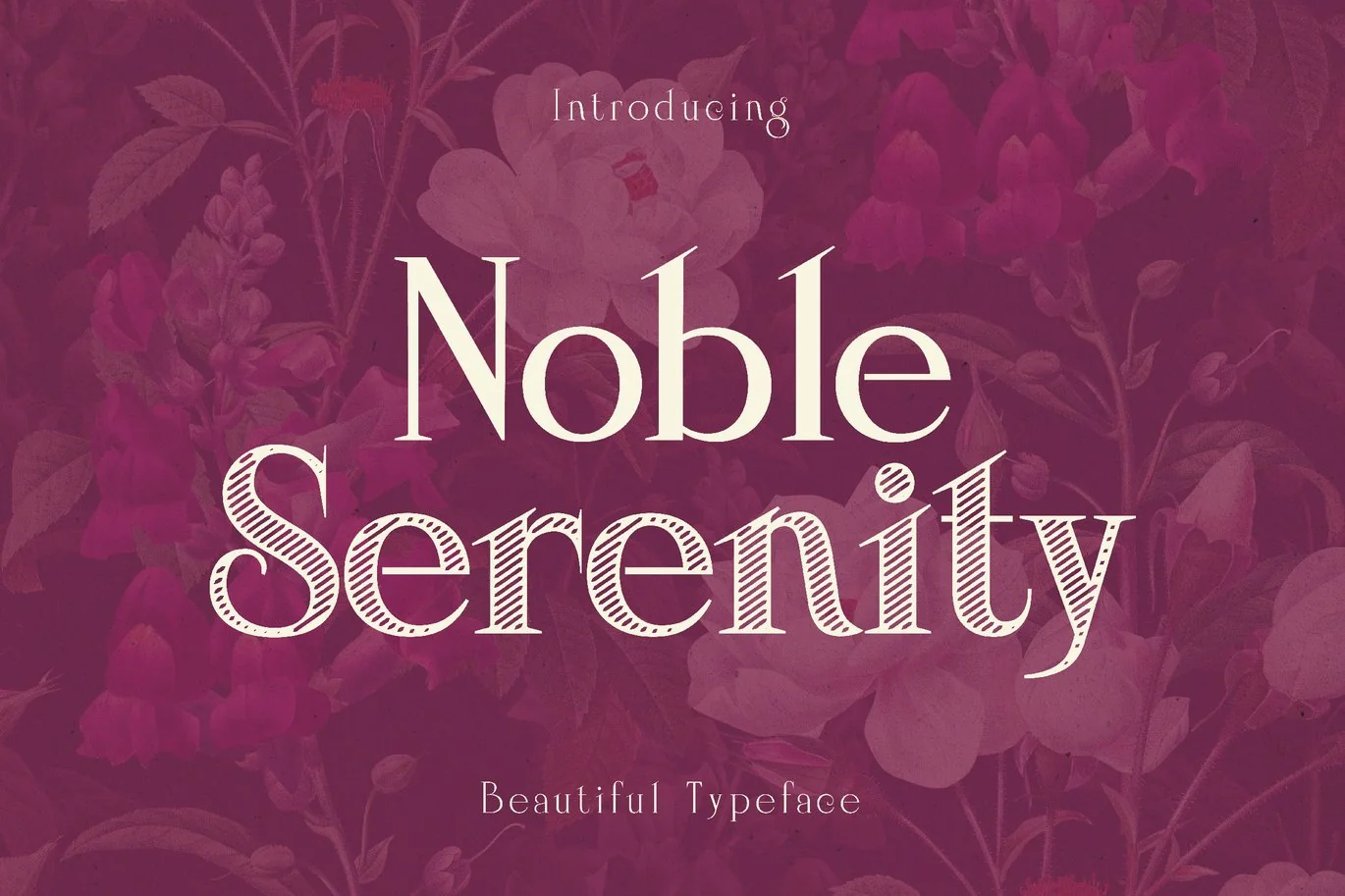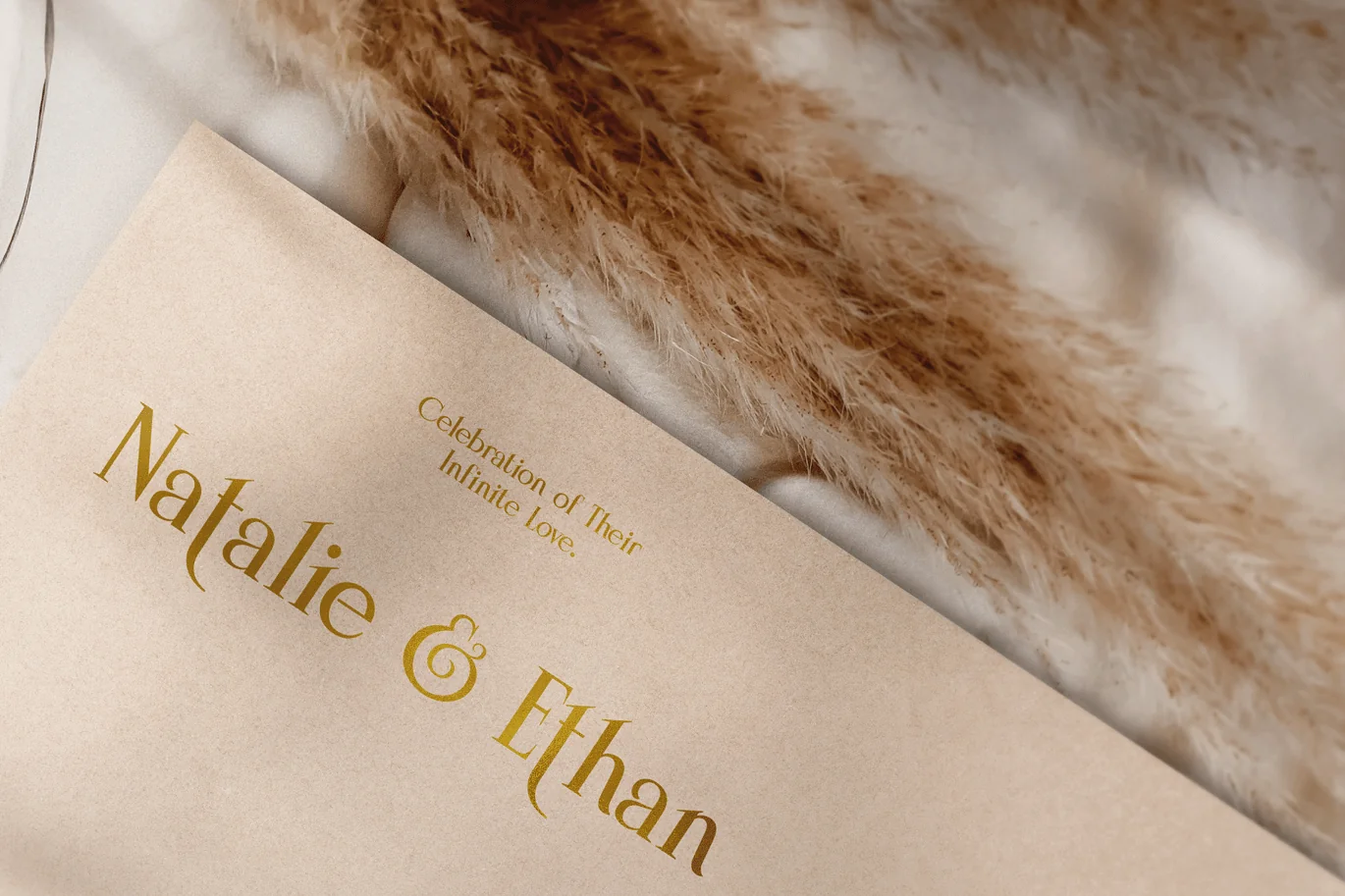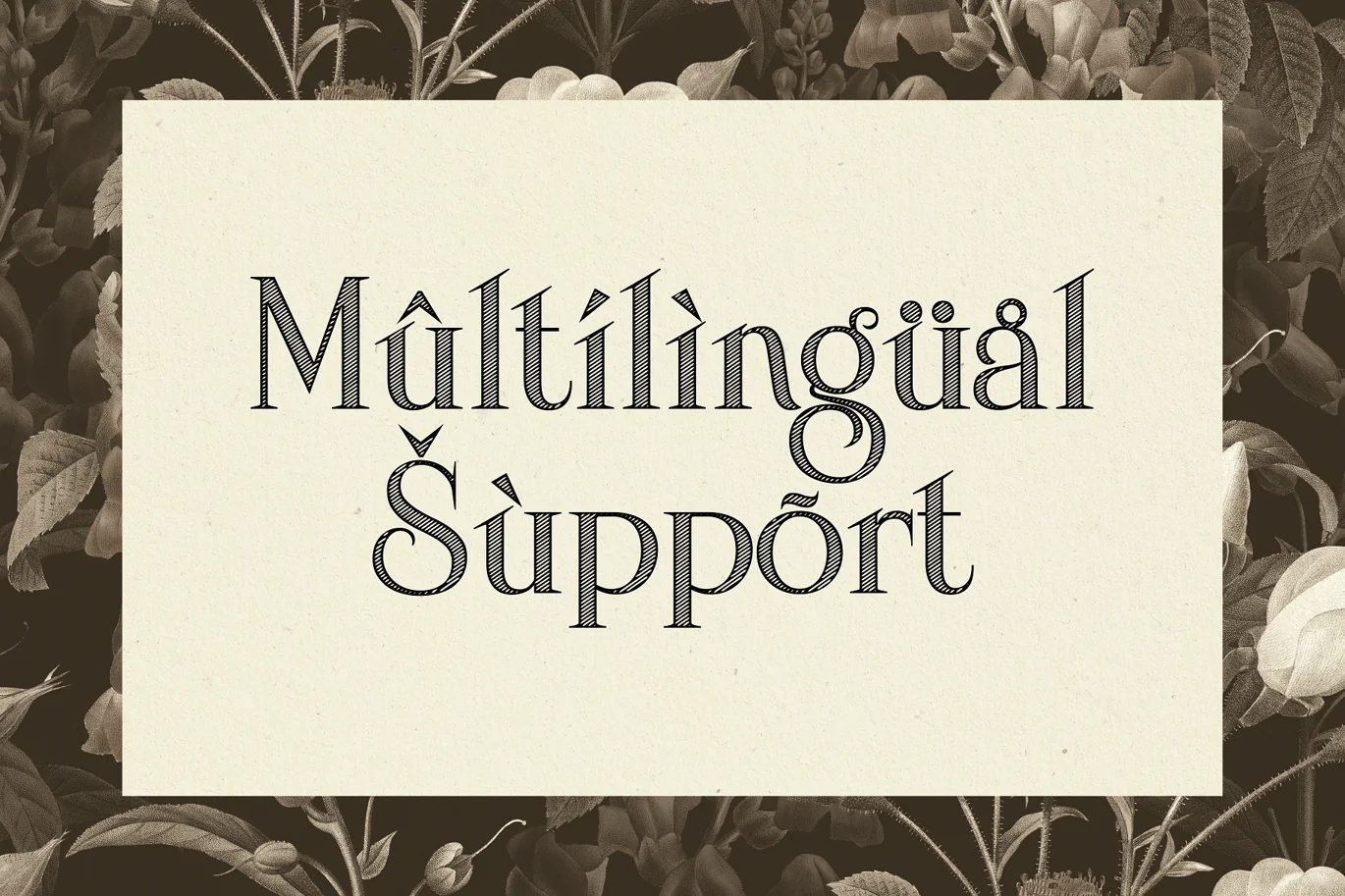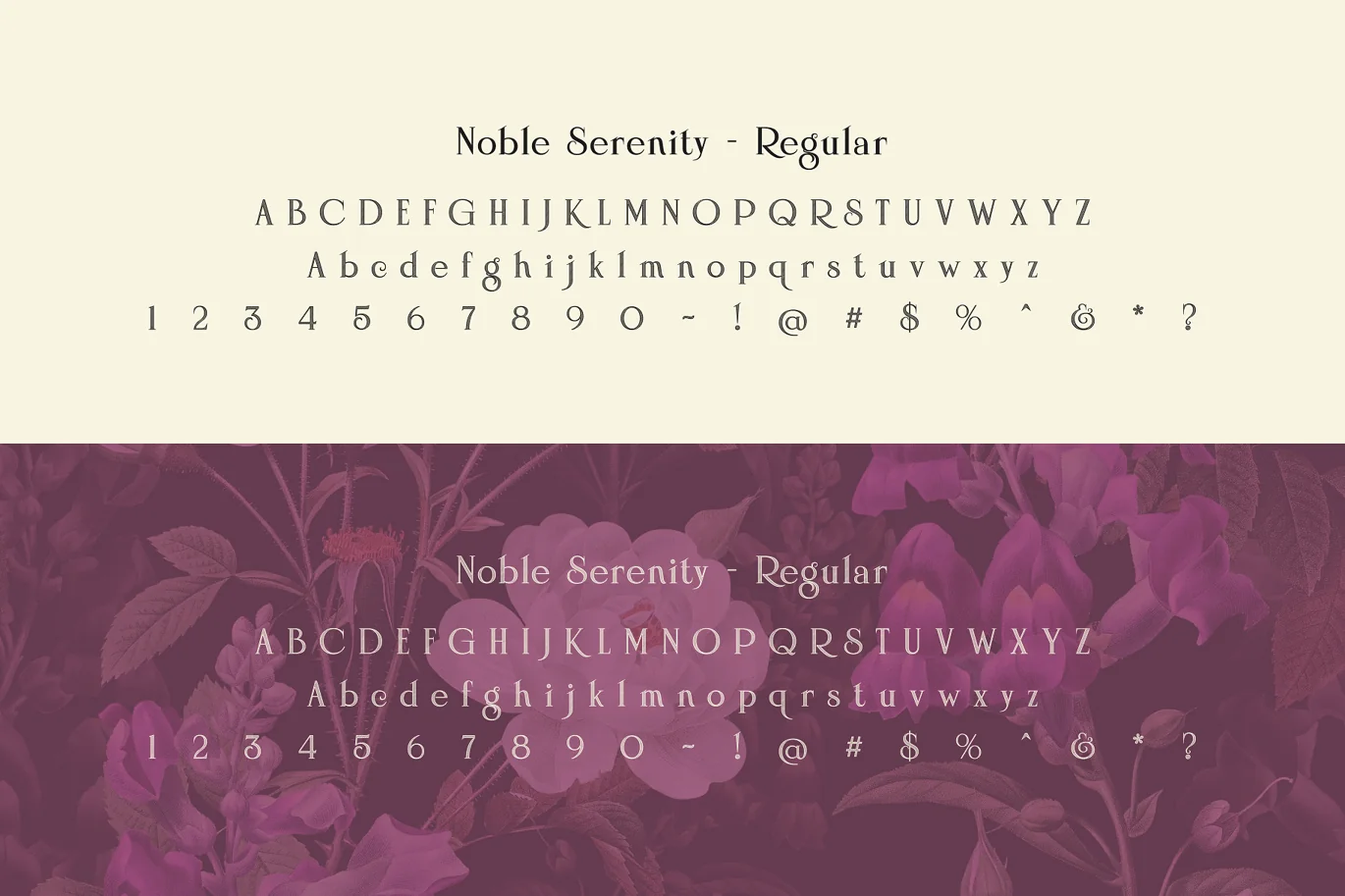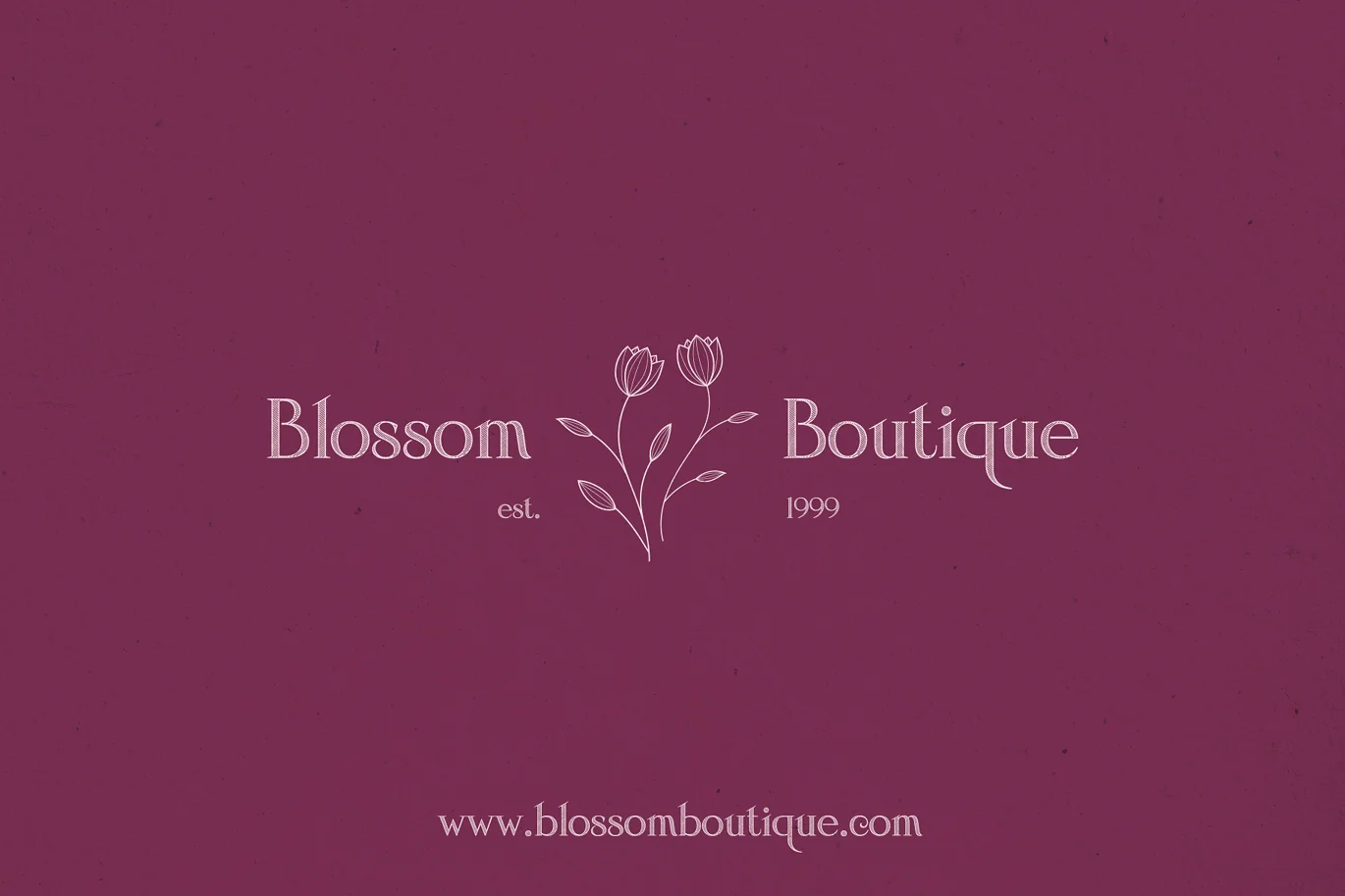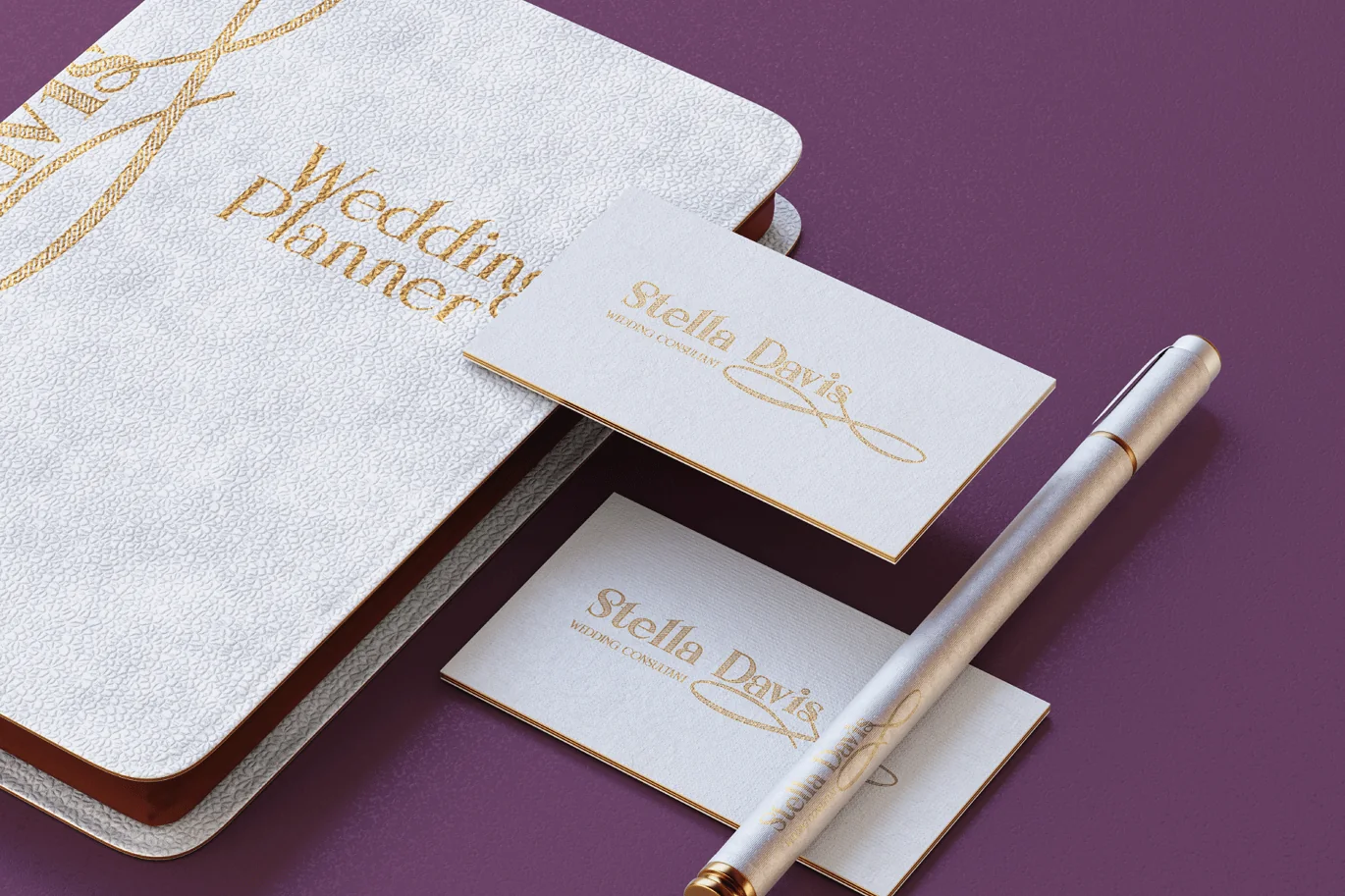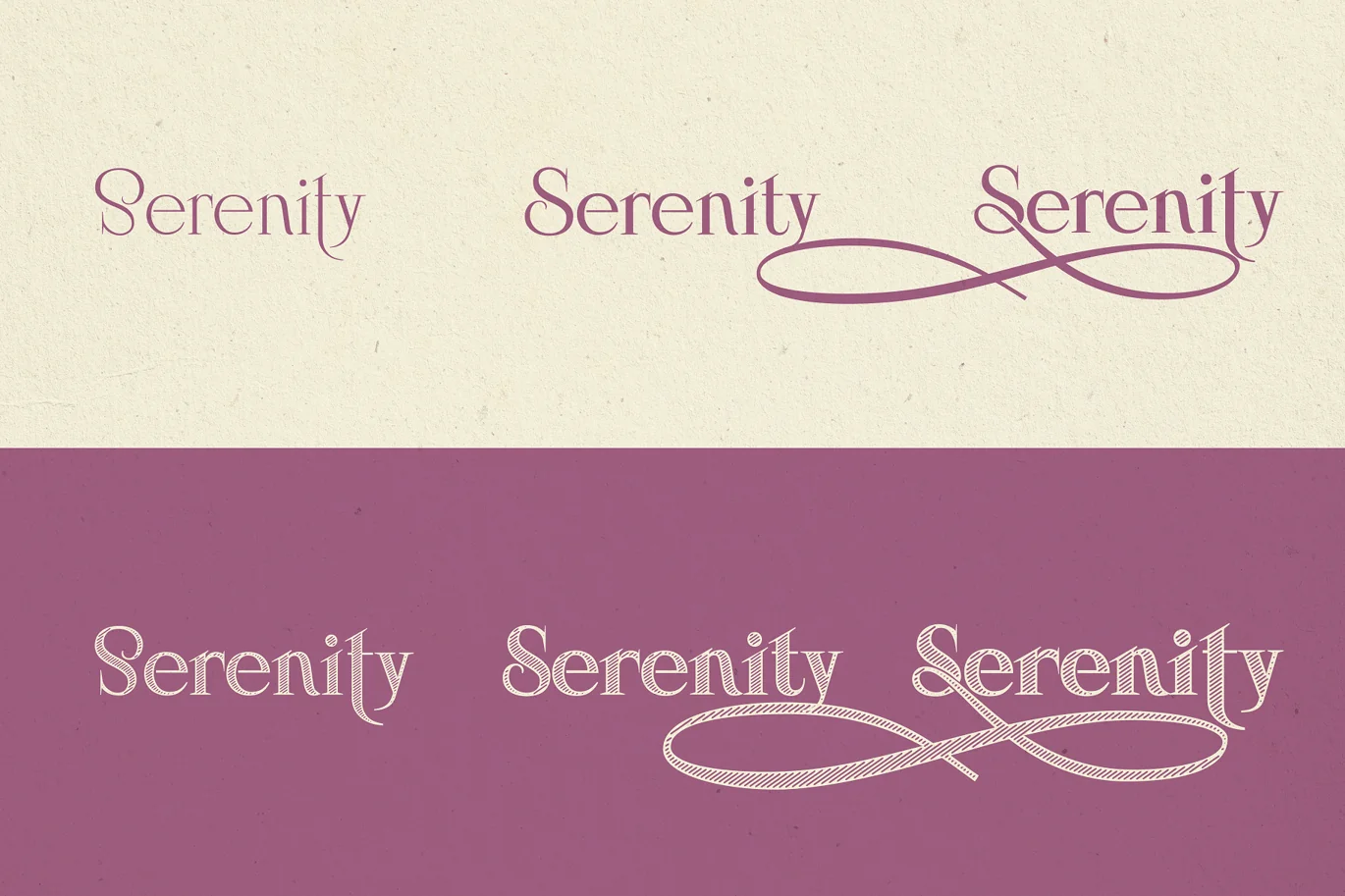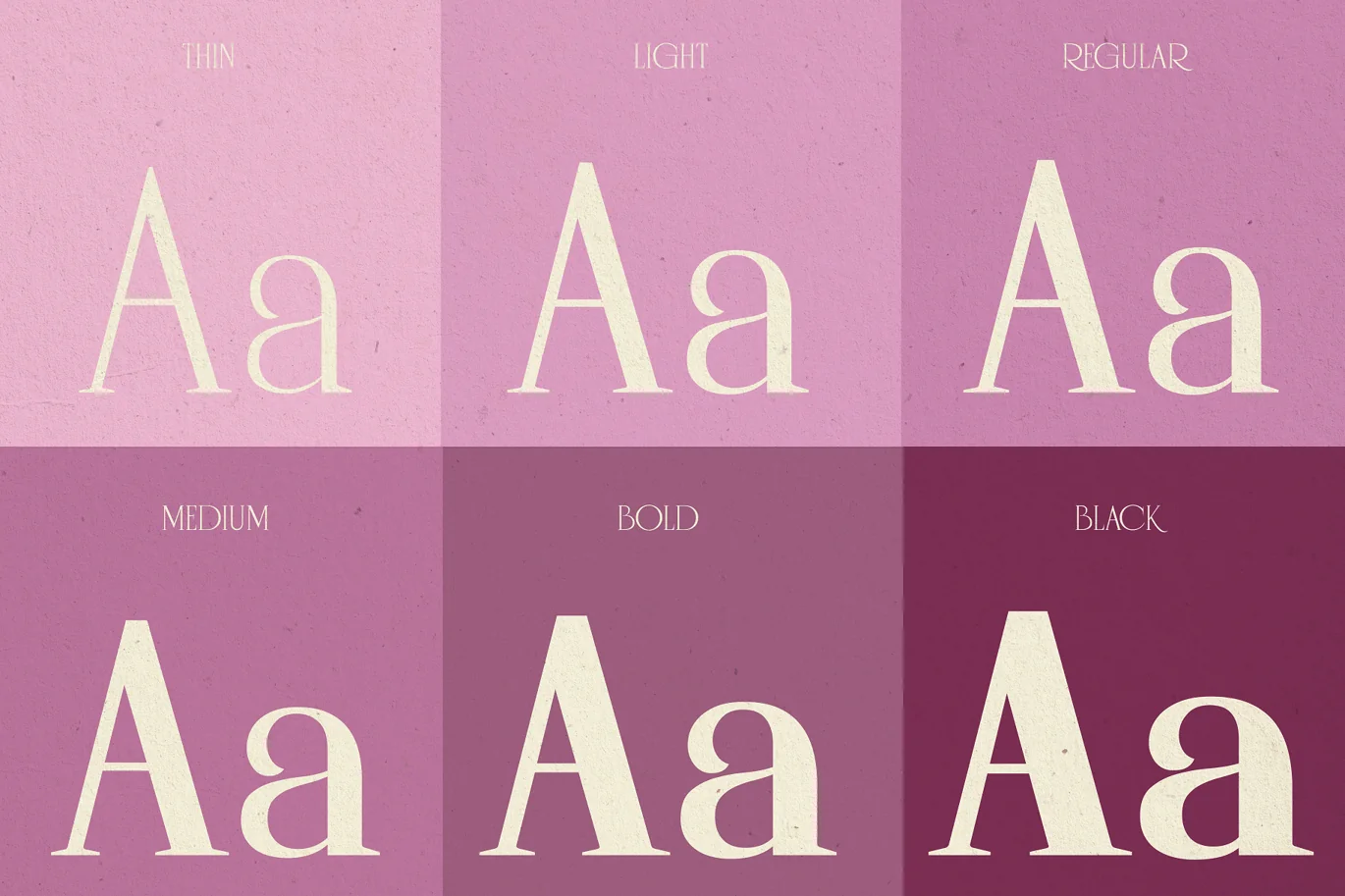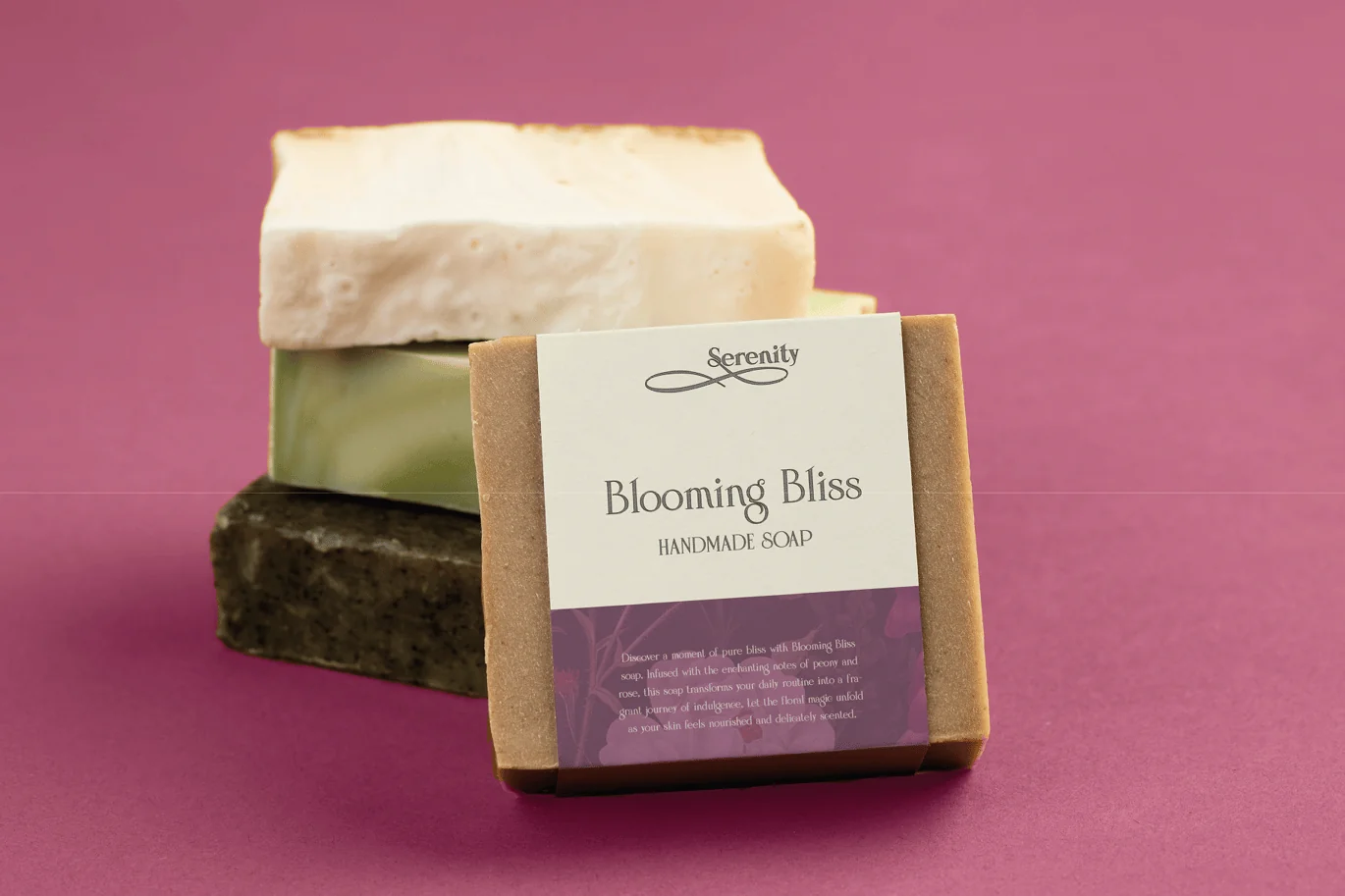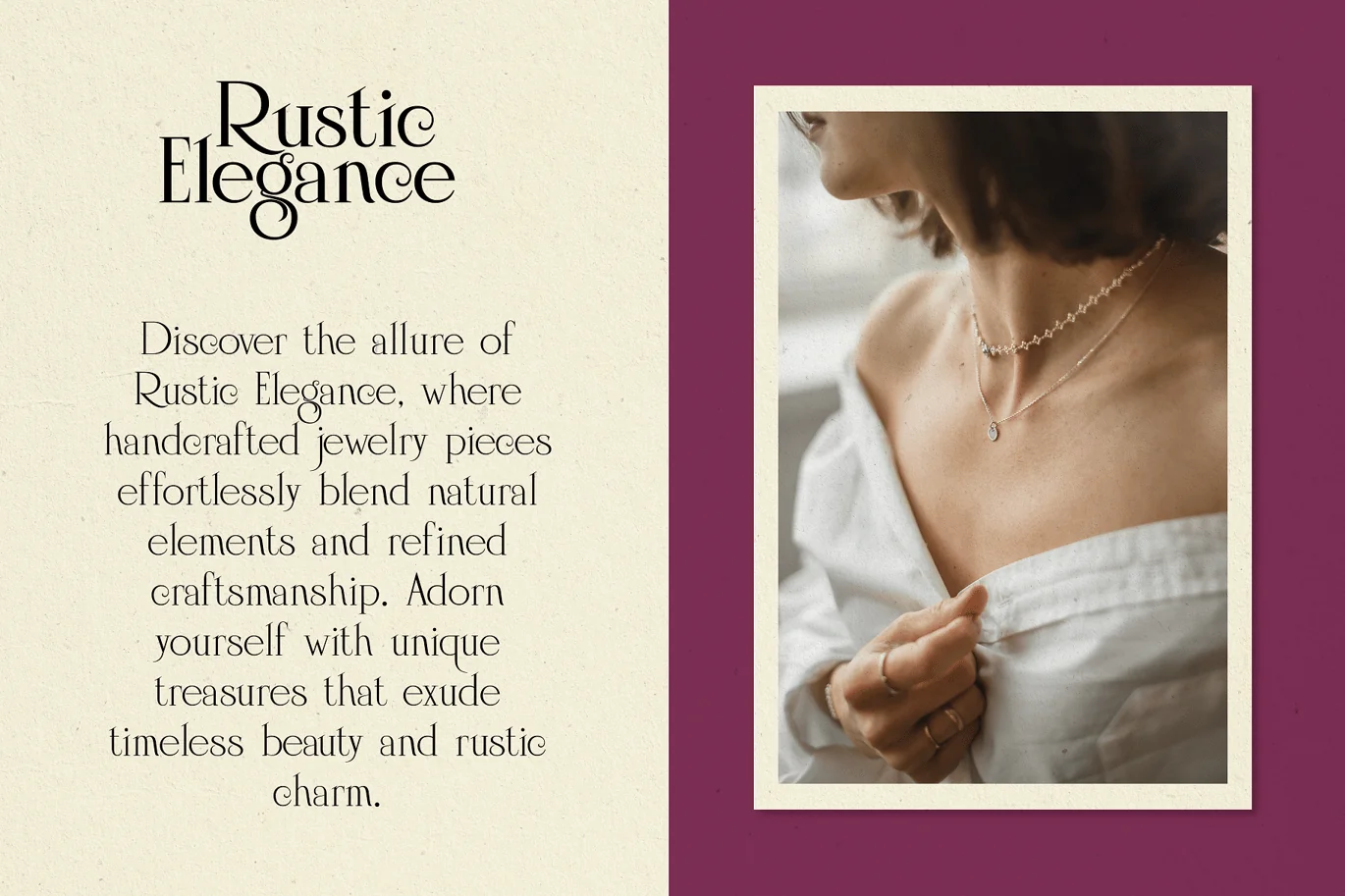
Noble Serenity – Elegant Wedding Typeface
Introducing Noble Serenity, where timeless beauty meets serene elegance. This exquisite serif font is a harmonious blend of sophistication and tranquility, designed to elevate your designs with a touch of refined grace.
With its clean lines, delicate curves, and perfectly balanced proportions, Noble Serenity exudes an aura of understated charm and sophistication. Each letter is meticulously crafted, reflecting the meticulous attention to detail and craftsmanship of a bygone era.
Whether you’re designing wedding invitations, luxury branding, or editorial layouts, Noble Serenity brings an air of refined beauty to your projects.
Discover the captivating allure of Noble Serenity and let your designs embrace the essence of timeless elegance. Elevate your typography to new heights with this font that whispers of tranquility and commands attention with its noble presence.